How To Choose Fantasy Fonts For Young Adult Book Cover
1. Why the right font matters
A cover font is more than decoration: it’s the first genre signal your reader gets. In fantasy, type can convey antiquity, magic, danger, or whimsy — and the wrong choice will send mixed signals. Professional guides and genre roundups show how type alone can position a book in the reader’s mind.
2. Know your sub-genre & mood
Fantasy for YA spans epic, urban, paranormal, and whimsical. Before choosing a font, define the emotional tone: epic & mythic (formal serifs), urban or contemporary magic (modern display / hybrid), light & whimsical (rounded or playful display). Matching font personality to sub-genre improves immediate recognition.
3. Readability & thumbnail testing
Most book shopping happens online — your cover will be seen as a thumbnail. Test every title at small sizes (e.g., ~100–300px wide) and prioritize legibility over ornament at that scale. If the title vanishes or looks cluttered in thumbnail, change the font, weight, size, or contrast. Industry guides strongly recommend thumbnail checks as a non-negotiable step.
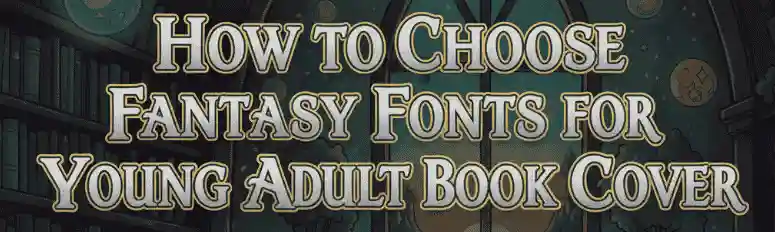
4. Which font styles work for YA fantasy
- Elegant serifs — convey mythic, epic, or historical fantasy. Good when you want gravitas.
- Decorative / display — great for unique titles but use sparingly (main title only).
- Script / swash — can signal magic or romance, but test for legibility.
- Playful rounded display — ideal for lighter YA fantasy or fairy-tale vibes.
When in doubt: one eye-catching display title font + simple companion font = safe, effective hierarchy. Ebook Launch
5. Pairing: title, subtitle, author
Hierarchy matters. Use the decorative / fantasy font for the title, a clean serif or sans for subtitle/tagline, and a balanced author name treatment (don’t let author name fight the title). Contrast (weight, width, x-height) creates cohesion. Keep kerning and leading polished so the title reads immediately.
- Dragon Snake (Display) — fierce, mythical display font for darker or epic fantasy titles.
- Creasy (Elegant Serif Display) — refined, ornamental serif good for epic or classical fantasy vibes.
- Headful (Serif Display) — sturdy display serif with good contrast; works well for readable epic titles.
- Chunky Unicorn (Playful Display Trio) — whimsical, youthful display with alternate decorative glyphs — great for light/fairy-tale YA covers.
- Little Elite (Fancy / Cute Display) — compact, playful style for softer YA tones.
- Davine Gerian (Stylish Display) — modern, stylish display that can work for urban fantasy or contemporary magical stories.
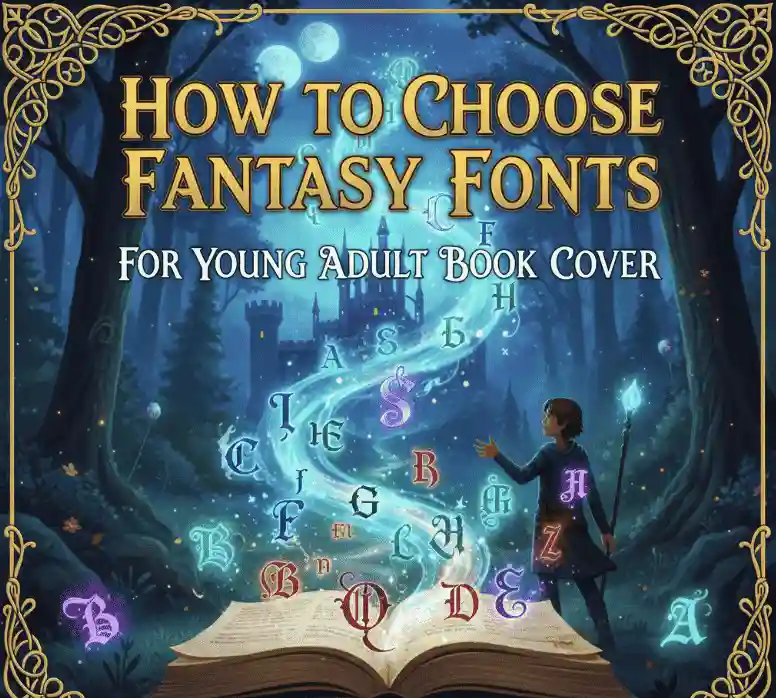
8. Test, iterate, and get feedback
Create 2–4 mockups with different title fonts and view them in thumbnails, on mobile, and as printed proofs. Ask target-reader friends or readers (or run a small paid creative test) to pick which cover ‘feels’ right for the story. Practical testing beats opinion-based debates. Barker Books Publishing
9. Conclusion
Choosing a fantasy font for YA is part art, part rules: match sub-genre mood, prioritize thumbnail legibility, pair decorative titles with simple companions, and always check licensing. Use the NoahType options linked above as a starting point — preview, test at small sizes, and finalize with feedback.